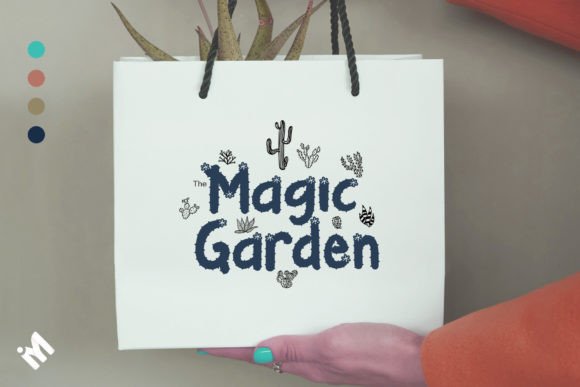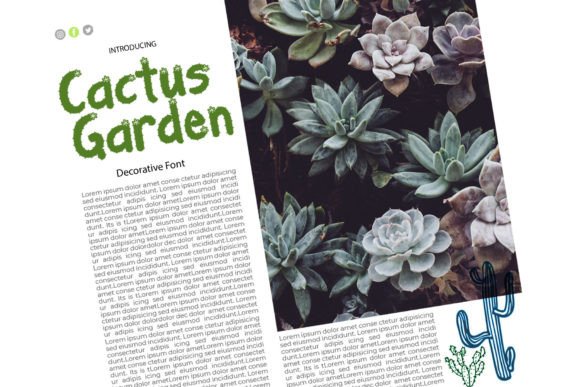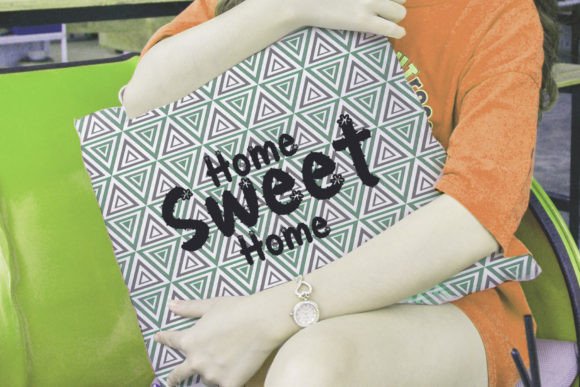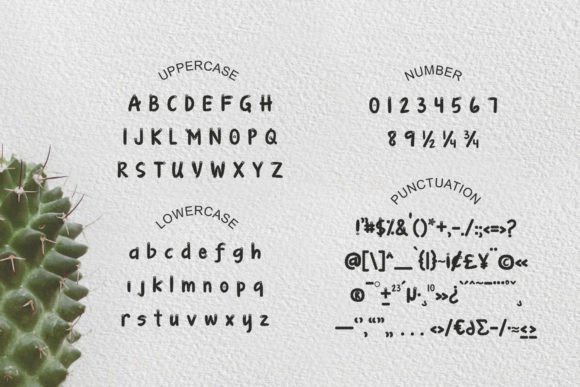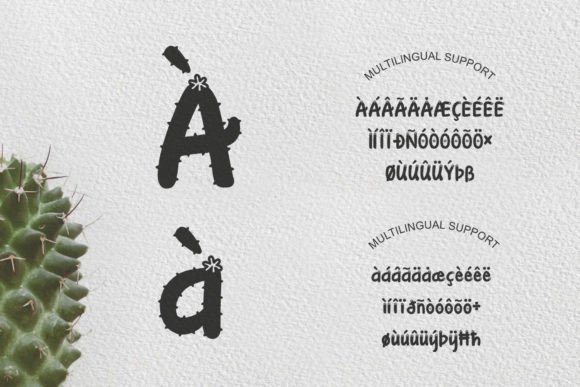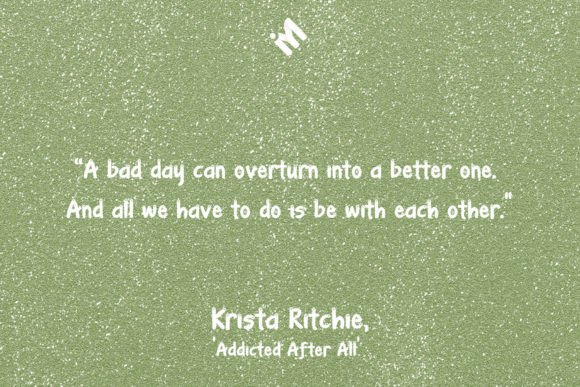
Cactus Garden Font: Add a Touch of Whimsy to Your Designs
Are you looking for a font that can add a dash of playfulness and cheerfulness to your designs? Look no further than the Cactus Garden Font! This delightful decorative font is perfect for designers and crafters who want to create fun and eye-catching projects. In this article, we’ll explore the features and benefits of Cactus Garden Font and show you how to make the most of it in your designs.
What is Cactus Garden Font?
Cactus Garden Font, specifically Cactus Garden Solid, is a funny decorative font designed to bring a smile to your face. Its unique and quirky style makes it an excellent choice for projects that need a touch of whimsy. Whether you’re working on branding and logomarks, merchandise, apparel, packaging, stationery, invitations, or social media graphics, this font is sure to add a pop of personality to your designs.
Key Features of Cactus Garden Font
- Unique and Quirky Style: Cactus Garden Font boasts a distinctive and playful design that’s sure to grab attention.
- Decorative and Fun: This font is perfect for projects that require a touch of whimsy and humor.
- Highly Versatile: Use it for a wide range of projects, from branding and packaging to apparel and social media graphics.
- Easy to Read: Despite its decorative nature, Cactus Garden Font remains clear and easy to read, making it perfect for use in various contexts.
Benefits of Using Cactus Garden Font
So, why should you choose Cactus Garden Font for your designs? Here are just a few benefits:
- Adds Personality to Your Designs: This font helps you create unique and eye-catching projects that stand out from the crowd.
- Perfect for Branding: Use Cactus Garden Font to create memorable logos and branding materials that reflect your brand’s personality.
- Great for DIY Projects: Whether you’re creating handmade crafts or DIY projects, this font is perfect for adding a personal touch.
- Social Media Friendly: Use Cactus Garden Font to create engaging social media graphics that grab attention and drive engagement.
Tips for Using Cactus Garden Font
To get the most out of Cactus Garden Font, here are some tips to keep in mind:
- Pair with Neutral Backgrounds: Let the font be the star of the show by pairing it with neutral backgrounds that don’t compete for attention.
- Experiment with Colors: Don’t be afraid to try out different color combinations to find the perfect match for your design.
- Use it Sparingly: While Cactus Garden Font is fun and playful, it’s best used in moderation to avoid overwhelming your design.
- Mix and Match with Other Fonts: Combine Cactus Garden Font with other fonts to create interesting and dynamic typography.
Who Can Benefit from Cactus Garden Font?
Cactus Garden Font is perfect for:
- Graphic Designers: Add a touch of whimsy to your designs and create memorable branding materials.
- Crafters and Makers: Use Cactus Garden Font to add a personal touch to your handmade crafts and DIY projects.
- Small Business Owners: Create eye-catching branding materials, packaging, and social media graphics that reflect your brand’s personality.
- Social Media Influencers: Use Cactus Garden Font to create engaging social media graphics that drive engagement and attract followers.
Cactus Garden Font is a fun and playful decorative font that’s perfect for designers and crafters who want to add a touch of whimsy to their projects. With its unique and quirky style, high versatility, and ease of use, this font is sure to become a favorite in your design toolkit. So why not give it a try and see how Cactus Garden Font can bring cheerfulness and personality to your designs?